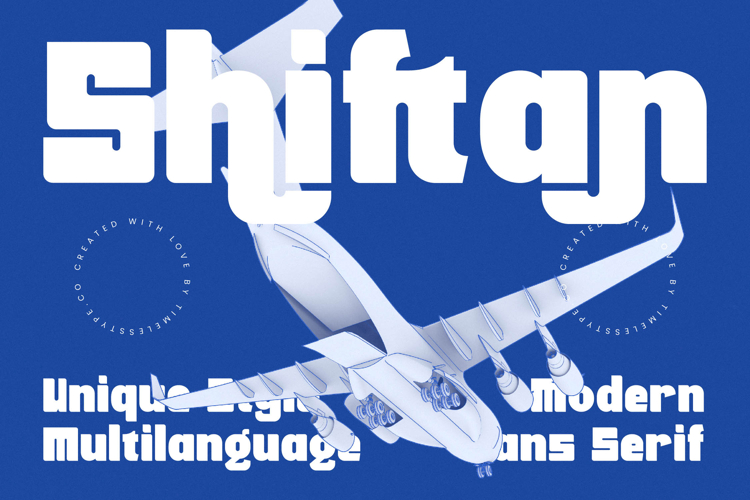
Shiftan - Modern Sans Serif Font
Elevate your visual narratives with unparalleled clarity and presence. Introducing Font Shiftan - Modern Sans Serif Font Sans Serif, a truly distinctive typeface engineered for maximum impact and readability. Its bold, modern aesthetic features clean lines and a strong visual hierarchy, ideal for projects demanding a commanding yet elegant touch in contemporary design.
Designed for designers who demand both style and substance, Font Shiftan - Modern Sans Serif Font Sans Serif offers remarkable versatility. Its thoughtfully crafted letterforms ensure optimal legibility at varying scales, from large headlines to concise body text. This balance of power and precision makes it perfect for striking branding, engaging advertisements, and dynamic digital campaigns where a unique voice is paramount.
Bridge linguistic barriers and expand your global reach effortlessly. With its extensive multilingual support, Font Shiftan - Modern Sans Serif Font Sans Serif adapts seamlessly across global markets, making it incredibly versatile for international projects. This comprehensive language coverage ensures your message resonates clearly and effectively with audiences worldwide, empowering truly global communication without compromising its distinctive design integrity.
Invest in a typeface that defines contemporary design. Font Shiftan - Modern Sans Serif Font Sans Serif is your ultimate solution for projects requiring a modern, authoritative, yet approachable aesthetic. It is perfect for luxury branding, innovative tech startups, editorial layouts, app design, and high-end packaging. Choose Font Shiftan - Modern Sans Serif Font Sans Serif to deliver a professional, memorable, and visually compelling statement every time.